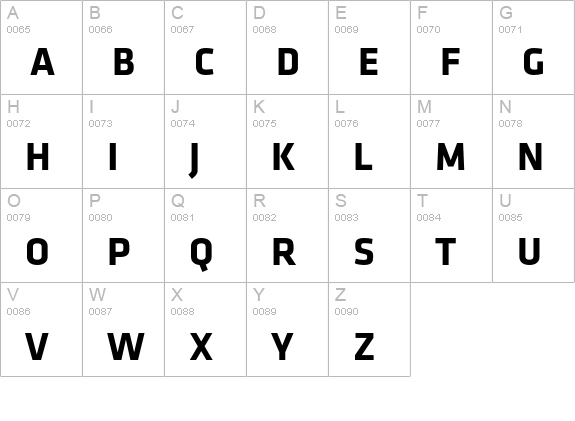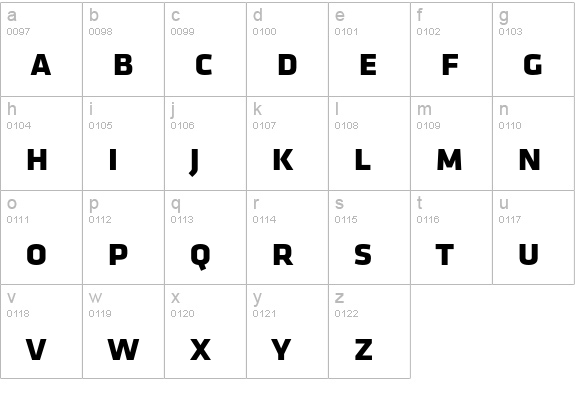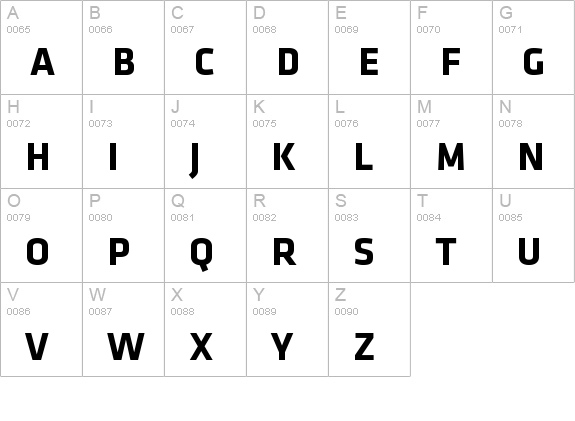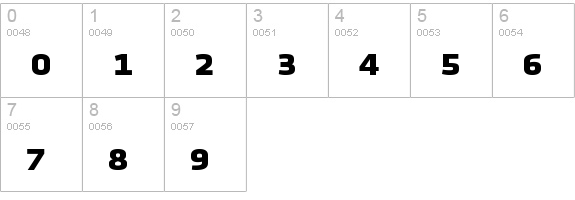
KlavikaBoldCaps-SCTF Font Details
Introducing KlavikaBoldCaps-SCTF, a stunning display font that exudes confidence and sophistication. This font is perfect for creating bold headlines, eye-catching logos, and captivating designs that demand attention. KlavikaBoldCaps-SCTF showcases a unique blend of boldness and elegance, making it a versatile choice for both modern and classic projects. Its strong, uppercase letters command the viewer's attention while offering a touch of refinement with its sleek curves and clean lines. But what sets KlavikaBoldCaps-SCTF apart is its accessibility. We understand the importance of having a font that is not only visually striking but also freely available to all. That's why we are proud to offer KlavikaBoldCaps-SCTF as a free download at FontsMarket.com. By making this exceptional font freely accessible, we aim to empower designers, artists, and creators of all backgrounds to bring their visions to life without any cost barriers. Whether you're a seasoned professional or a budding enthusiast, KlavikaBoldCaps-SCTF is here to elevate your designs and inspire your creative journey. So don't miss out on this rare opportunity to add a touch of distinction to your projects. Download KlavikaBoldCaps-SCTF from FontsMarket.com today and experience the power of this extraordinary font. Unleash your creativity and make a statement that will leave a lasting impression.